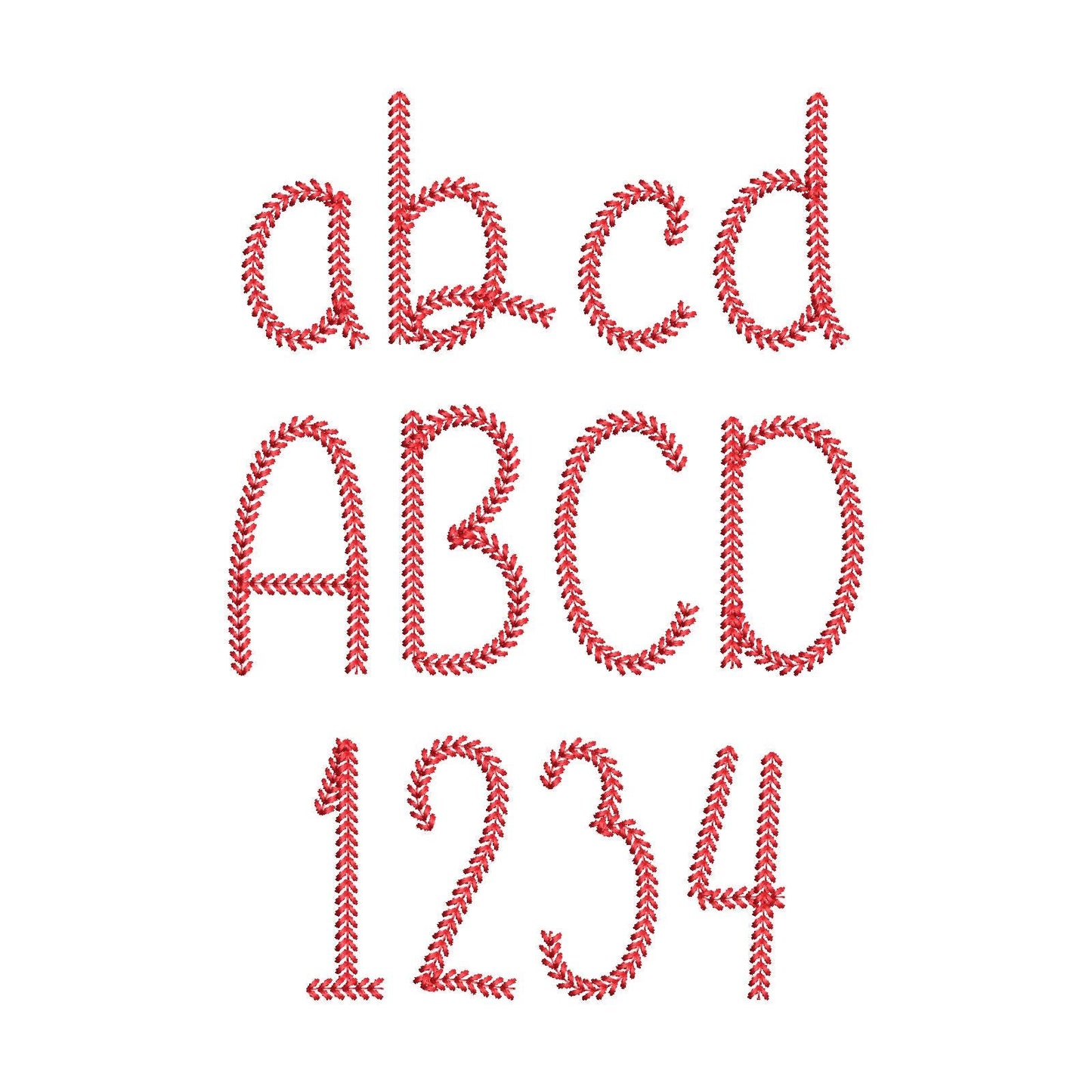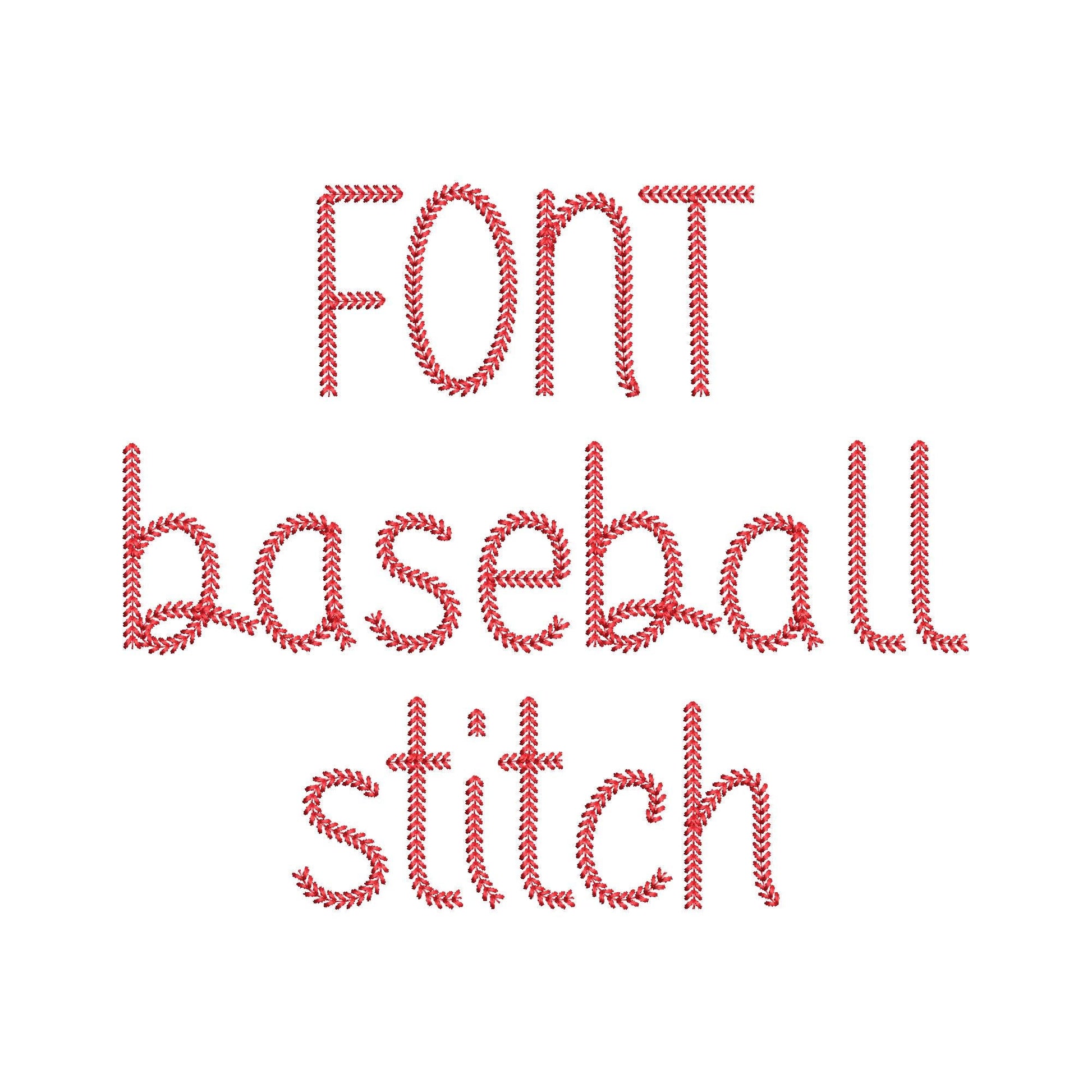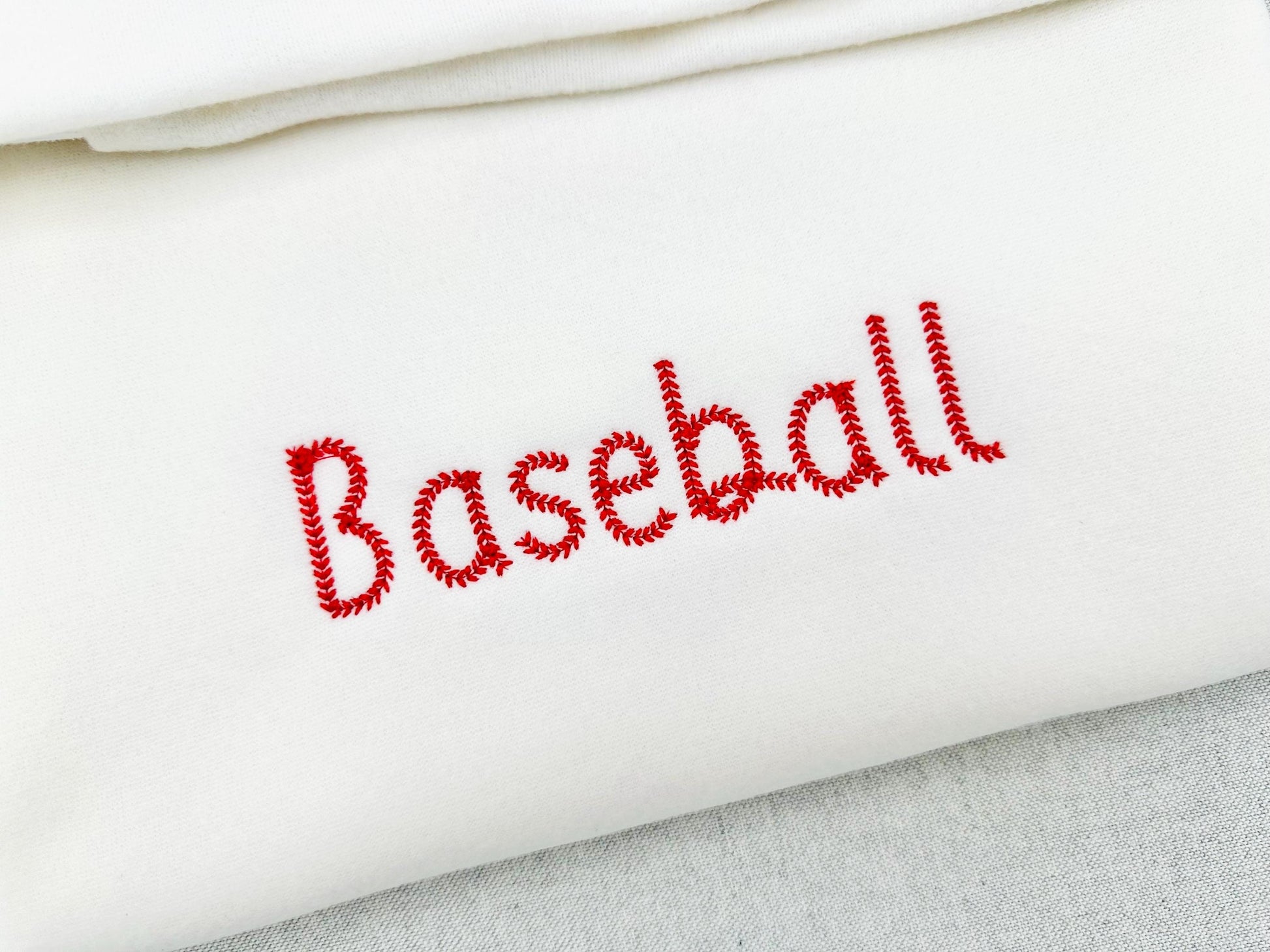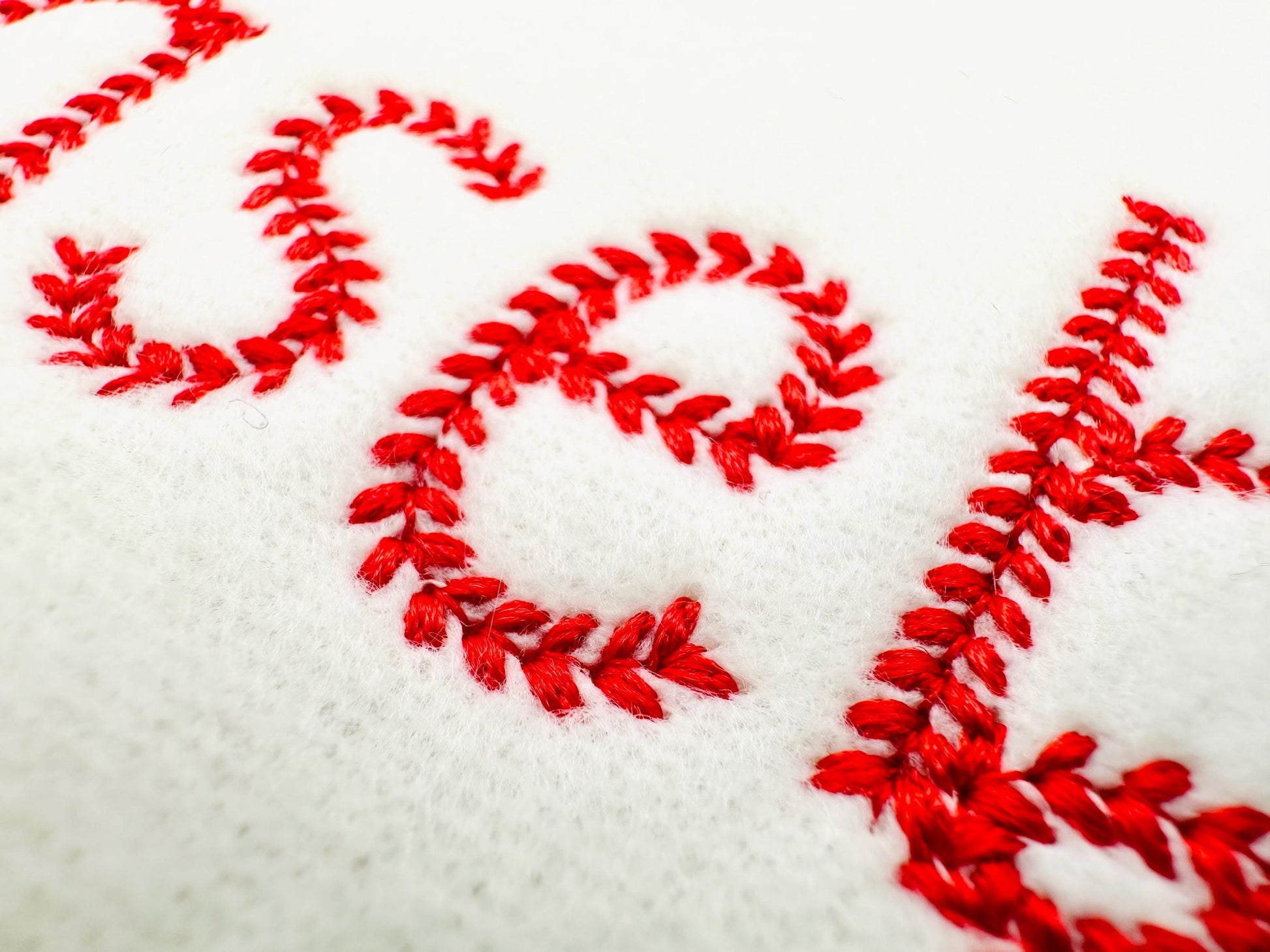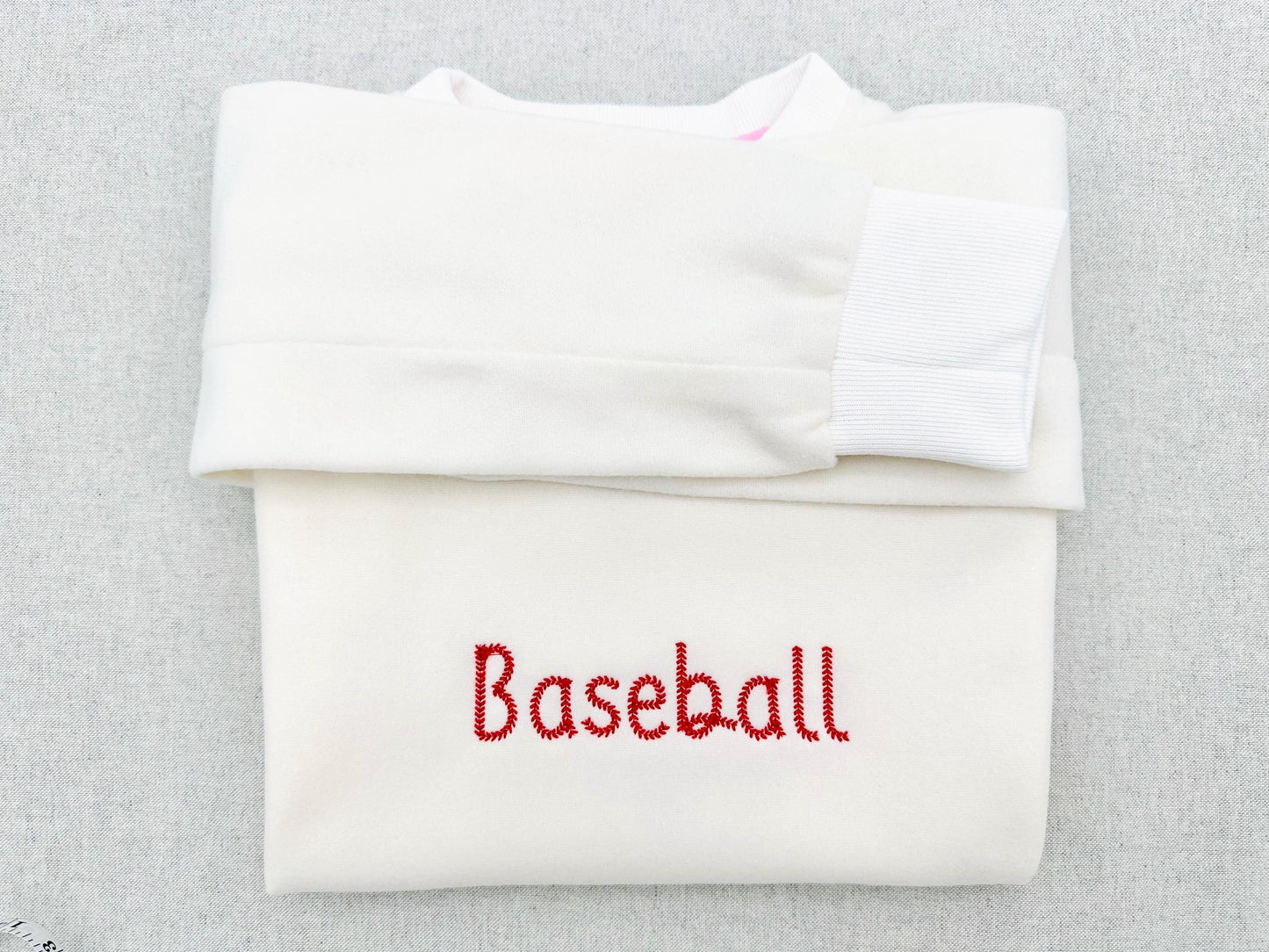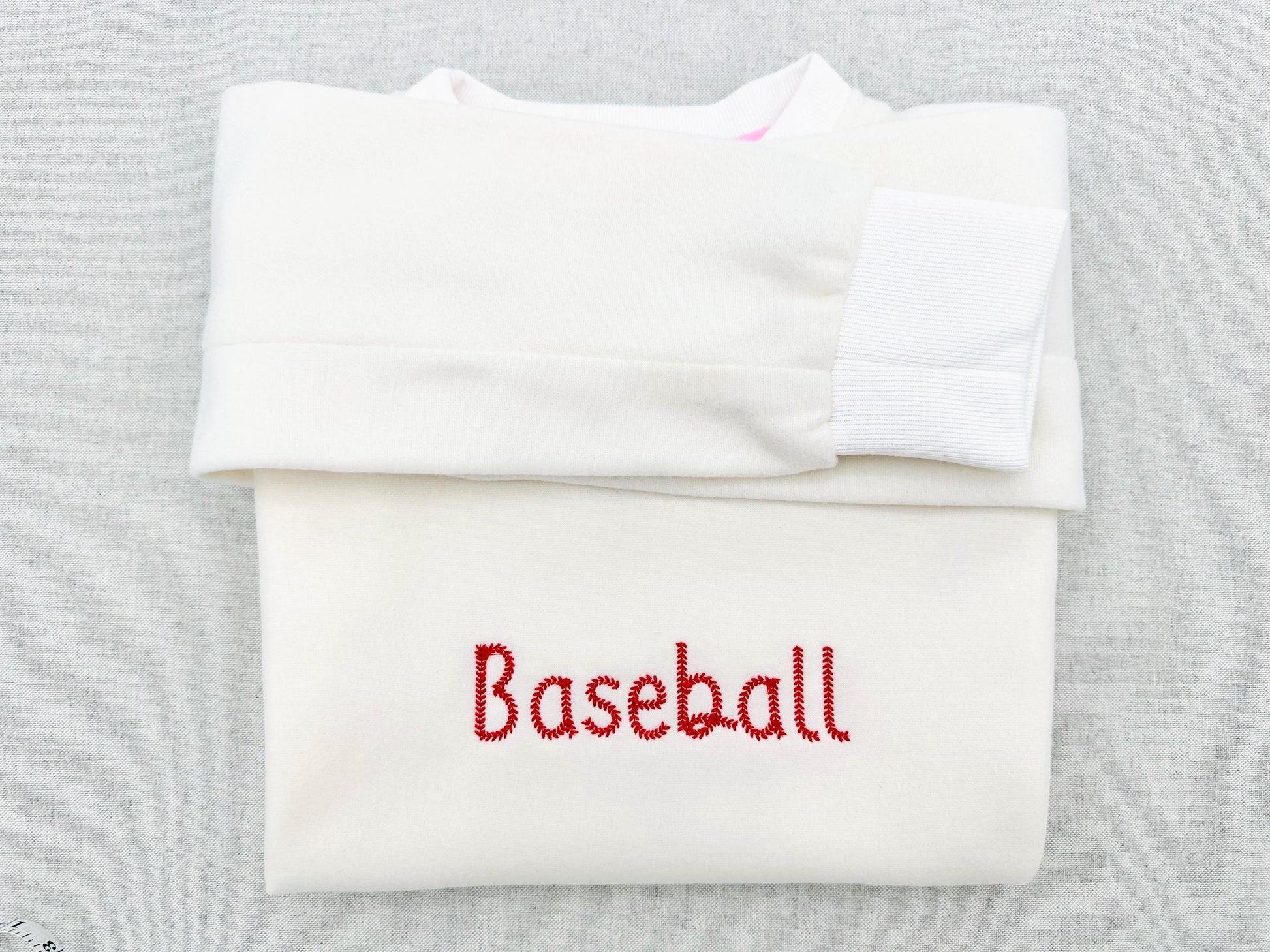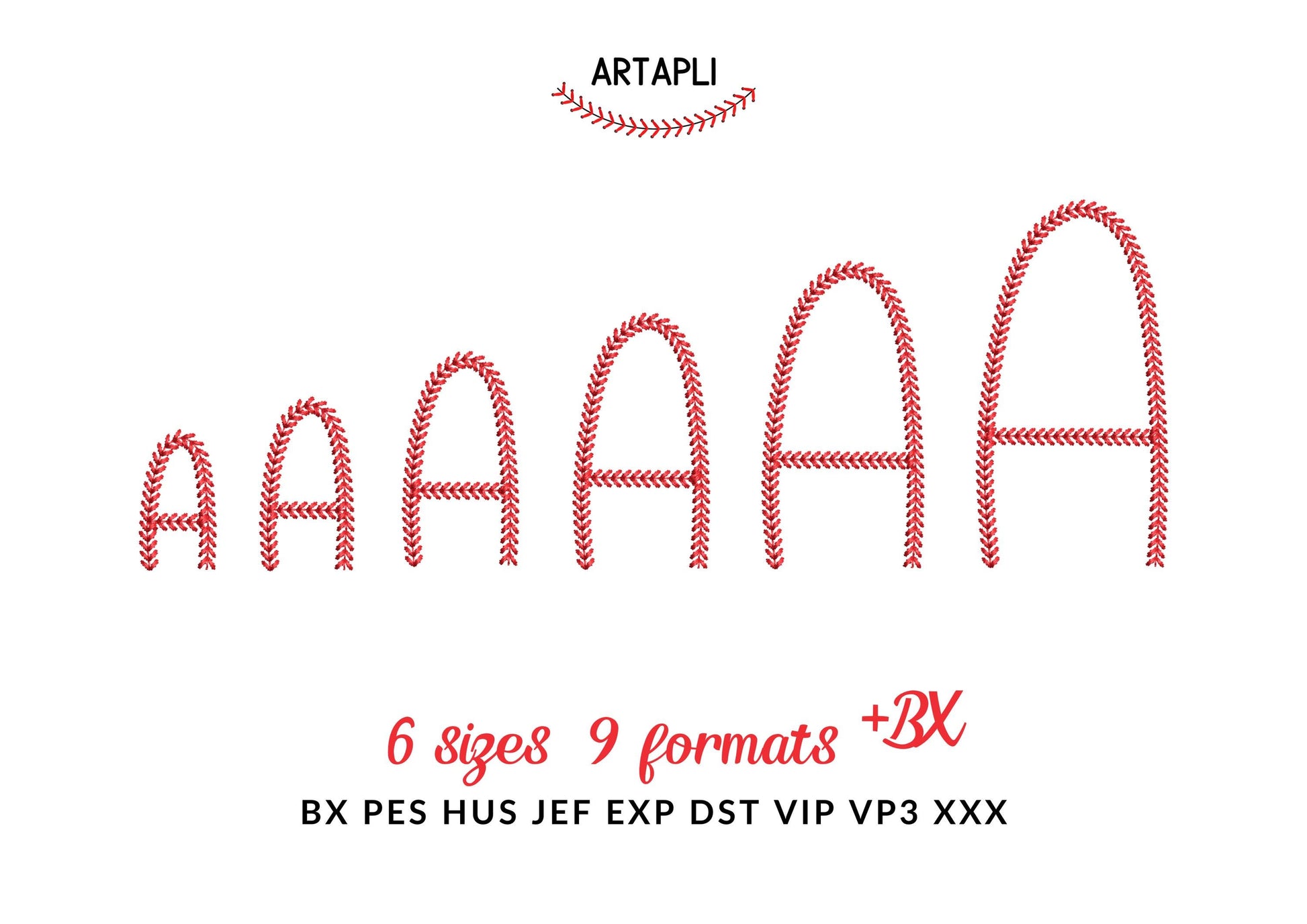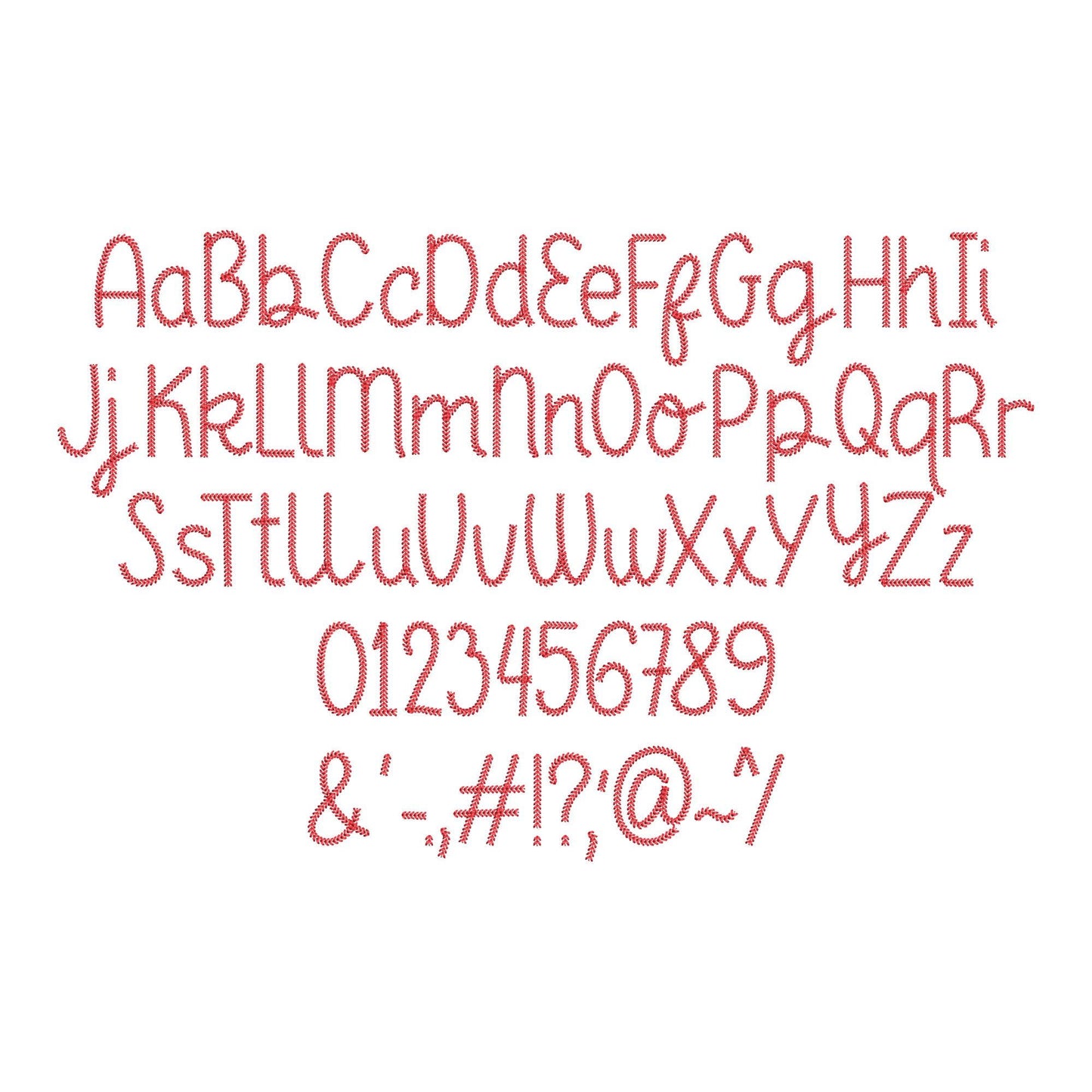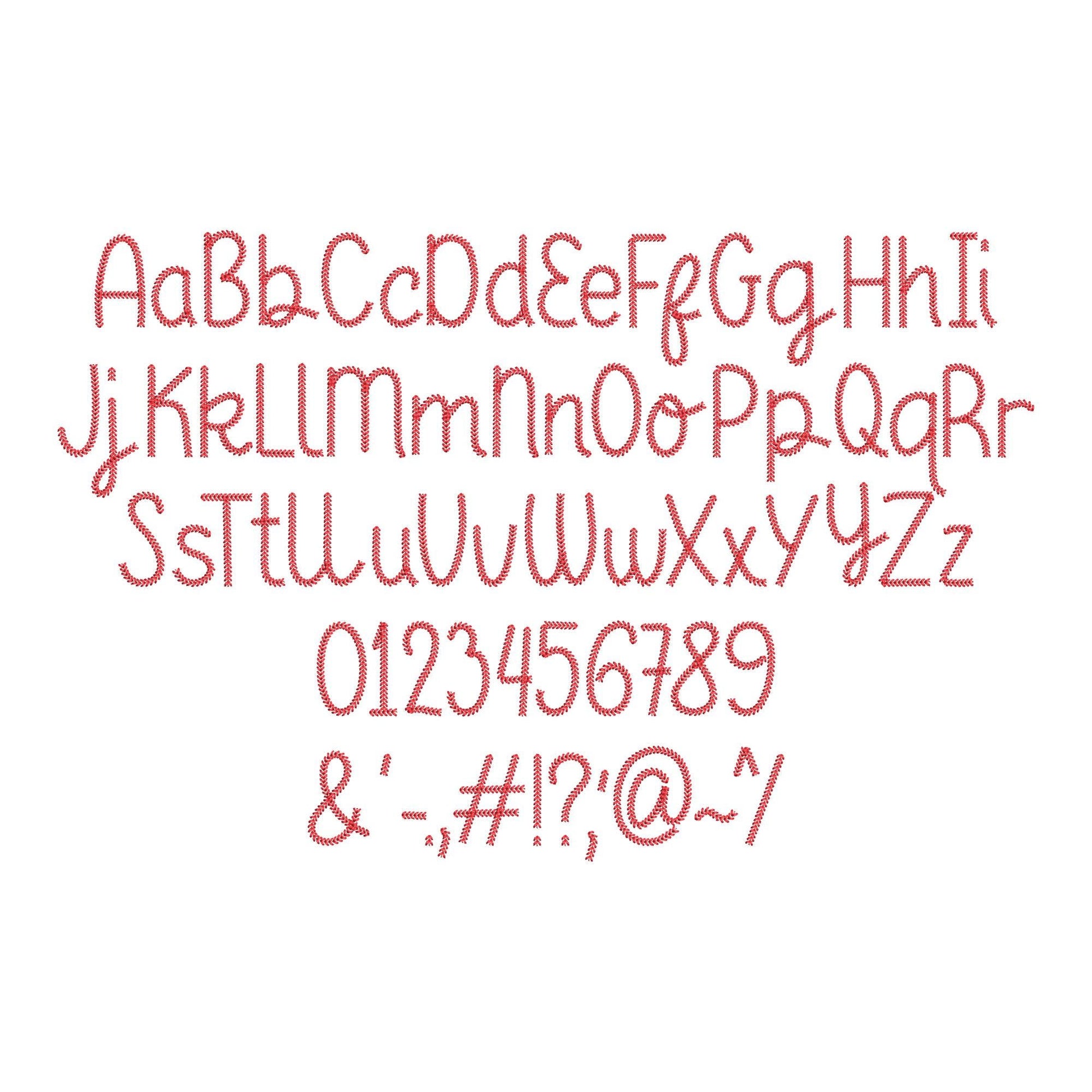
Baseball stitch Font Sunspun
Or click to open the linkA handwritten font in a sporty baseball-seam stitch. Great for team names, numbers and words on shirts, caps and bags.
The letters come in six sizes: 1.3, 1.6, 2, 2.4, 2.9 and 3.4 inches. Includes uppercase and lowercase letters, numbers 0-9 and punctuation.
- Sunspun baseball stitch font: uppercase and lowercase letters, numbers 0-9 and punctuation
- 6 letter sizes, 1.3 to 3.4 in